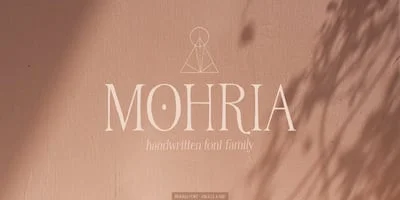
Mohria Font
Mohria Font is perfect for botanical garden branding, nature conservation campaigns, organic wellness centers, forest retreat signage, eco-friendly product packaging, natural skincare labels, herbalism practice materials, environmental education projects, and earthy social media content. This organic typeface brings natural elegance and botanical sophistication to both digital and print design applications.
Mohria Font is exciting because it embodies the delicate beauty and resilient spirit of natural ferns, making it an exceptional choice for designers who want to convey organic authenticity with genuine botanical appeal. Its graceful letterforms and natural character provide the perfect combination of botanical elegance and environmental functionality, ensuring your projects communicate sustainability, natural beauty, and organic excellence that resonates with audiences seeking genuine nature connections and eco-conscious experiences.
The Mohria Font family includes organic weight variations and botanical elements, featuring light, regular, and medium weights with complementary natural styles, botanical ligatures, and eco-inspired decorative flourishes. Each style maintains consistent natural aesthetics while offering flexibility for different environmental applications, allowing designers to create harmonious visual systems that reflect botanical values and organic sophistication.
Whether you're designing for environmental brands, wellness companies, or nature-focused projects, Mohria Font delivers authentic botanical appeal and natural sophistication that connects with audiences seeking genuine organic experiences and environmental consciousness. This premium typeface offers designers the natural elegance and botanical charm needed to create designs that communicate environmental responsibility, organic beauty, and natural excellence effectively. The font's organic character makes it perfect for botanical branding, eco-friendly campaigns, and natural applications where authentic environmental credibility is essential. Download Mohria Font today and naturalize your creative projects with genuine botanical sophistication and organic typography excellence that defines environmental design standards.